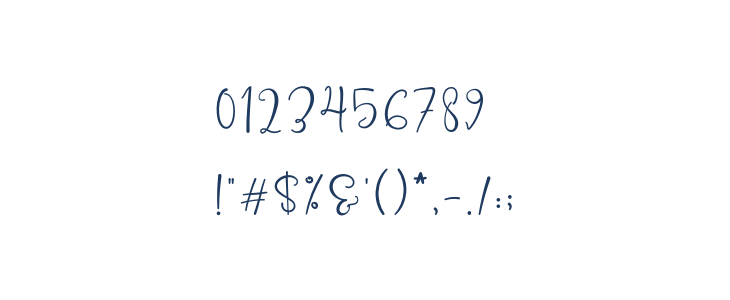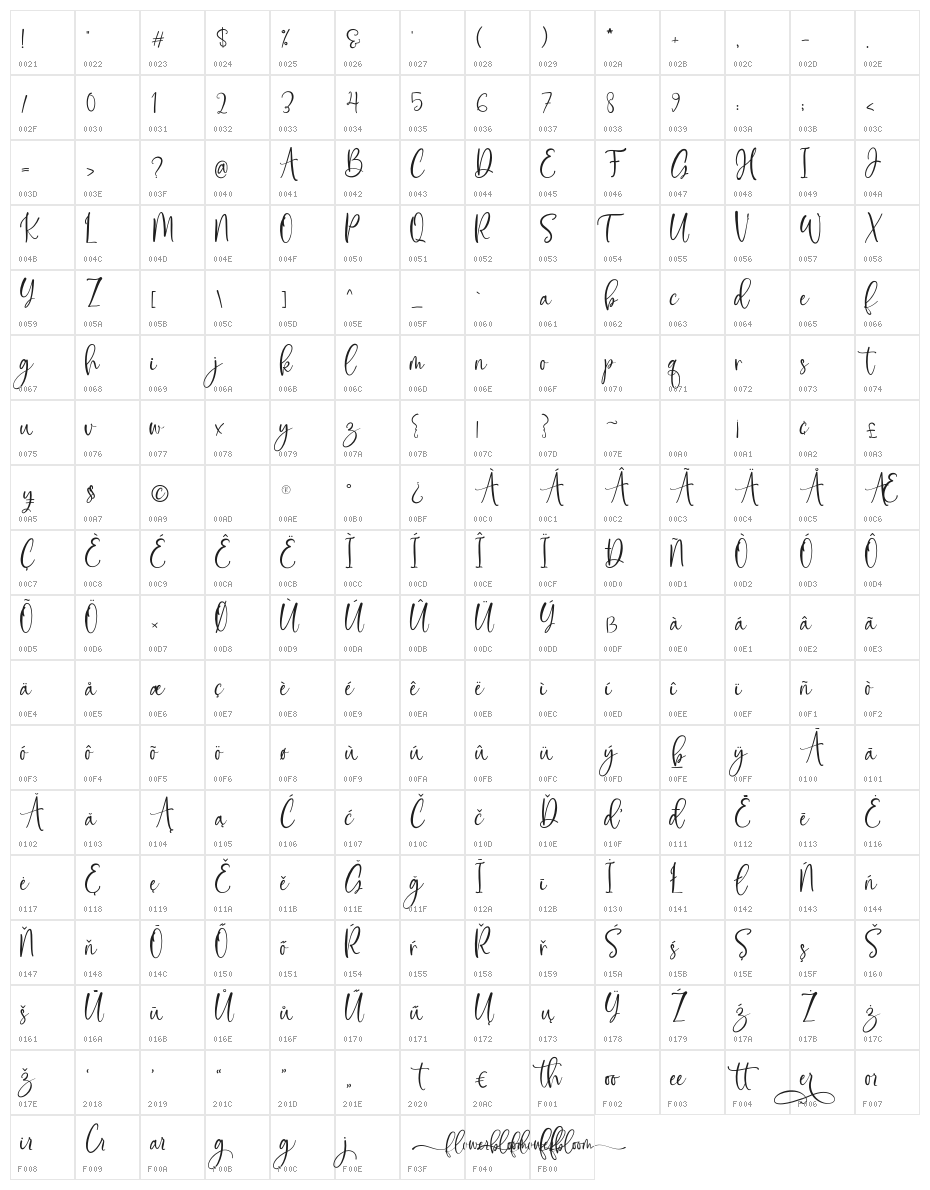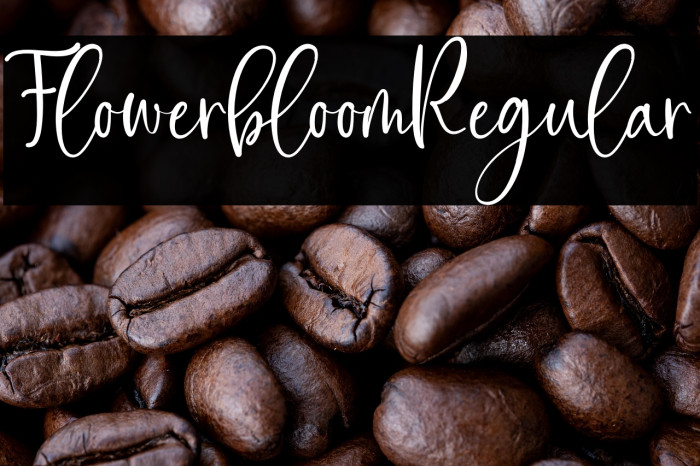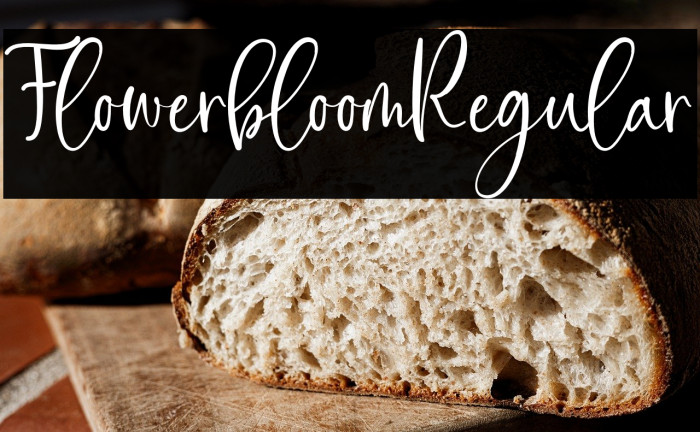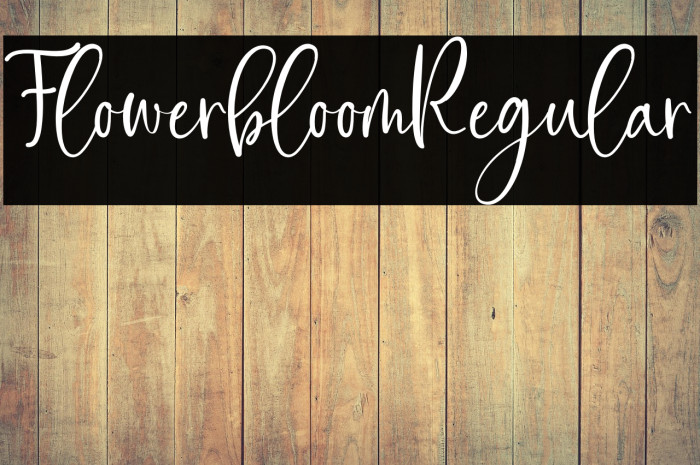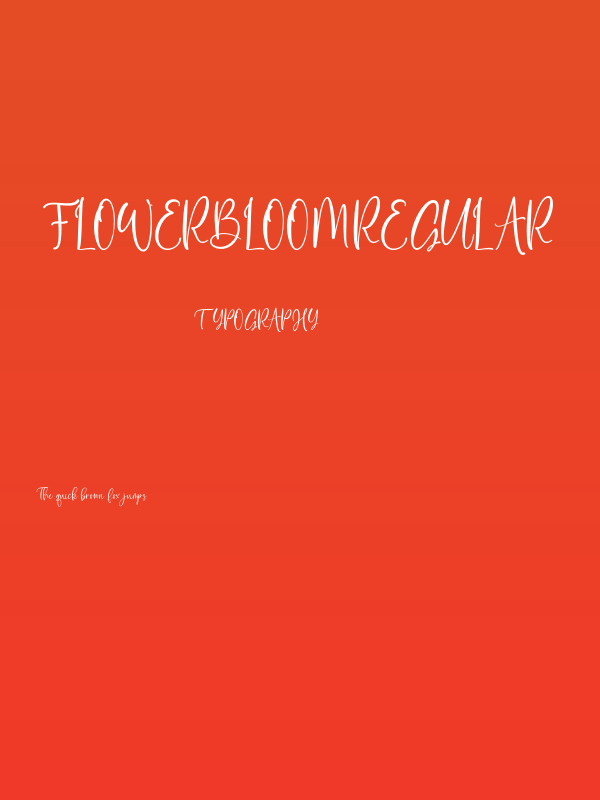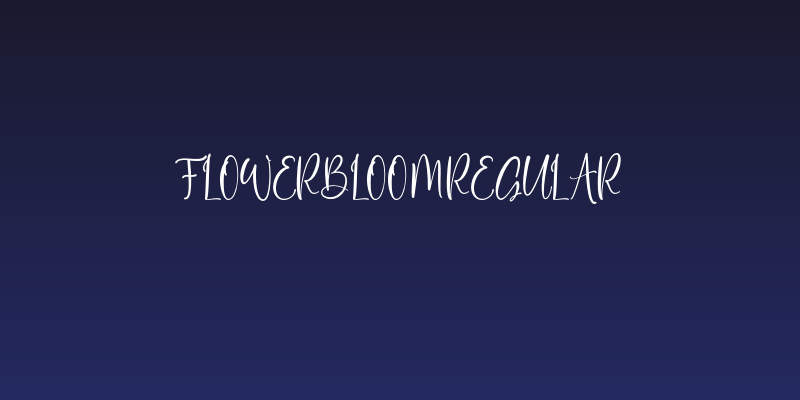
FlowerbloomRegular Font
FlowerbloomRegular Description
This font features an elegant and flowing script style, characterized by its smooth, cursive strokes and artistic flair. The uppercase letters are tall and graceful, with a slight slant that adds a dynamic feel. The lowercase letters are equally fluid, with loops and curves that enhance its handwritten appearance. The numerals are consistent with the script style, maintaining a cohesive look throughout. Special characters are thoughtfully designed to match the overall aesthetic, making this font suitable for creative and decorative purposes.
Use CaseLogos, Invitations, Decorative text
Proposed ProjectsIdeal for wedding invitations, greeting cards, branding, and logo design.